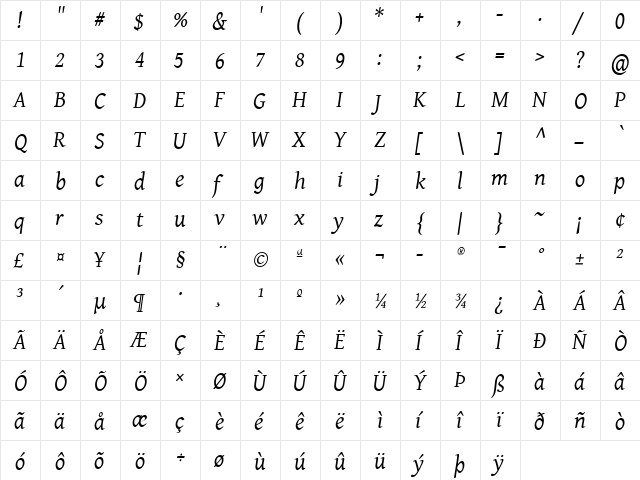
Gentium Italic
| Designer | J. Victor Gaultney |
Design Context for Gentium Typeface
Gentium is a composed and adaptable typeface that performs quietly and consistently across a wide range of design contexts. The slanted form adds forward momentum and visual energy.
Pro Tip: Try Gentium for annotation and caption copy alongside an upright companion — the contrast in angle creates a dynamic but ordered typographic system.